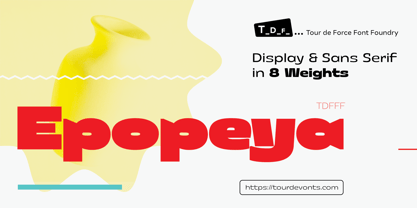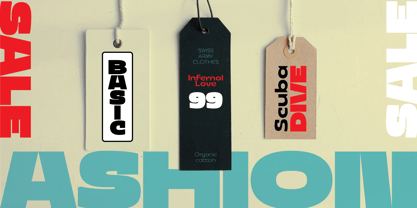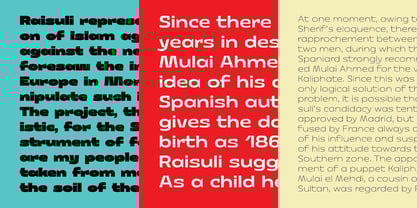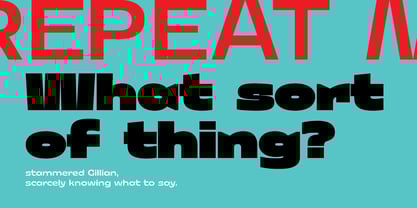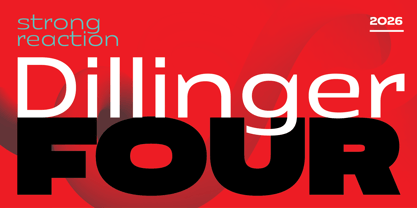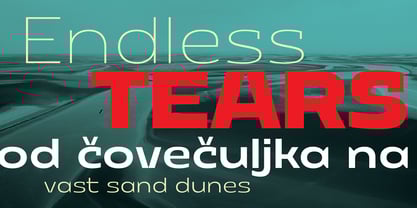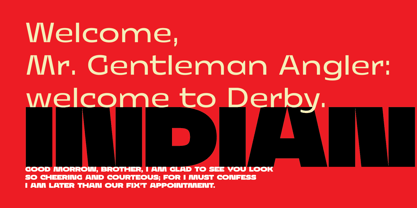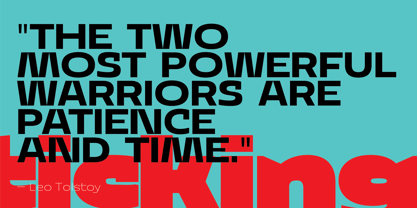
Epopeya
by Tour De Force
Epopeya font family is mixture of sans serif and display categories that comes in 8 weights – from Extra Light to Black. By its design, it's wide, compact, stable font family with a lot of unique characteristics. It relies on geometric sans basis which was further developed to make Epopeya distinct and still fully usable in all classic situations where you're required for sans serif font family. Contains Extended Latin character set with Standard Ligatures as OpenType features.